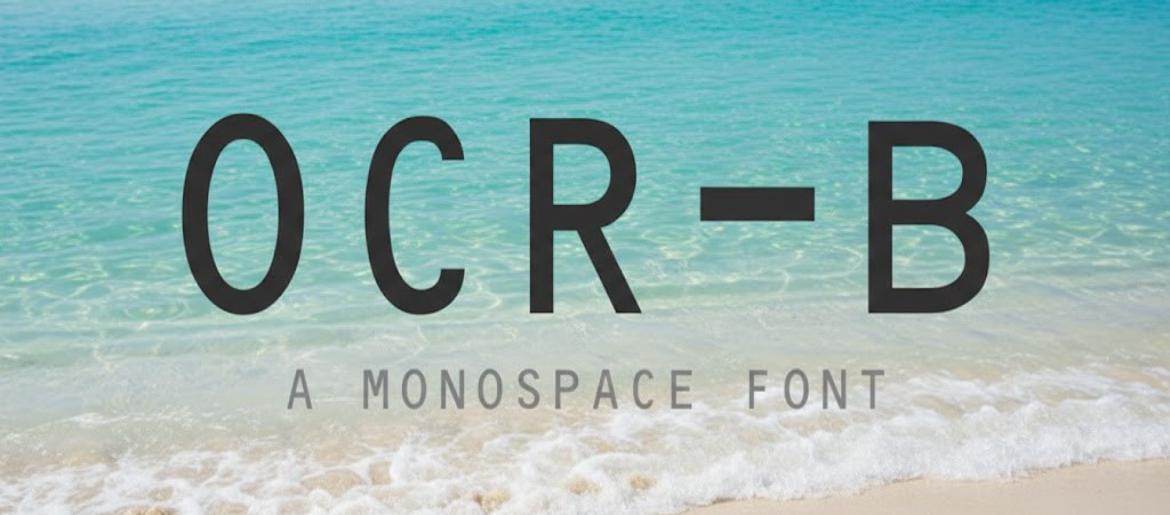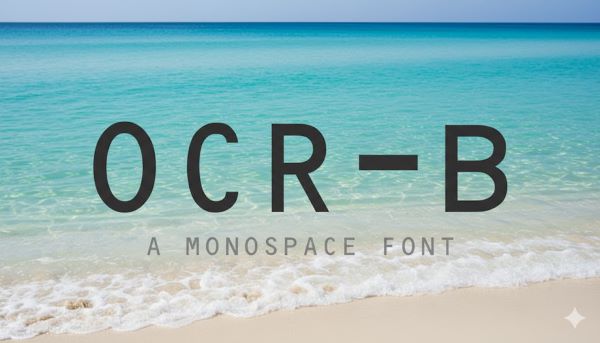
OCR-B Font
OCR-B Font is a monospaced sans serif typeface developed for optical character recognition and machine readability. It features clear, uniform spacing that ensures accurate scanning and consistent digital processing. Widely used in banking, passports, and technical documentation, it remains essential for standardized identification systems and practical design applications, including functional and historically significant free fonts collections.
➤ Designer: Adrian Frutiger
➤ Style: Sans Serif